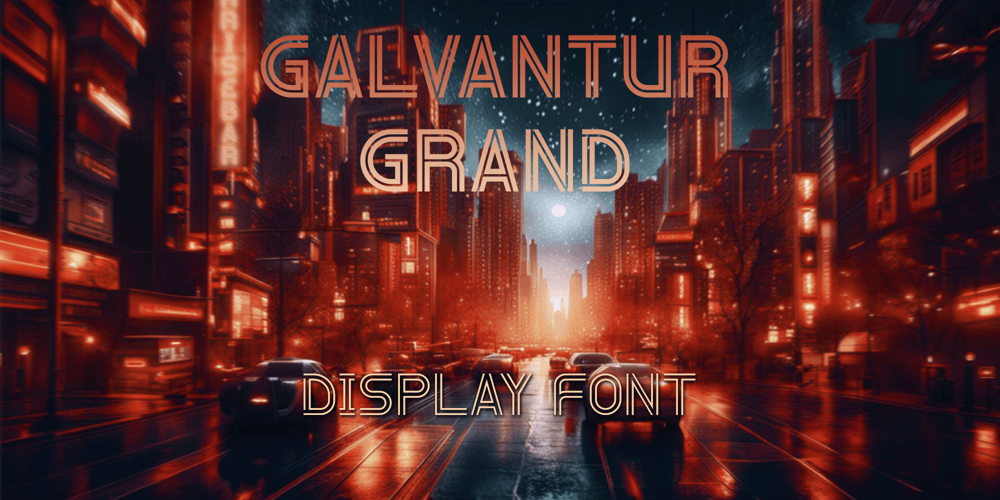
Galvantur Grand Font Family was designed by Peter Ivanov and published by Ivangard Studios. Galvantur Grand contains 7 styles and family package options. Galvantur Grand is an uppercase-only display font, intended to be used for attention demanding titles and headers, or generally any form of text that needs to take center stage. An offshoot of the Galvantur font, Galvantur Grand takes things one step further towards the extreme, to really give your design projects that special flair.Characterized by the double lines and negative space between them, this powerful font can make any form of text stand out strongly. The multiple styles included can further help customize your designs and projects, to get the perfect feeling you’re going for.Comes in 7 different styles – Regular, Oblique, Light, Light Oblique, Outlines, Light Outlines and Oblique Outlines. To get an idea of the various styles, please check out the images or use the preview field to type in text.Galvantur Grand supports Latin and Cyrillic based languages.IMPORTANT: This is an uppercase-only font. Typing out lowercase characters will look exactly like typing out uppercase ones. Furthermore, it is recommended that this font is used with bigger sized text.